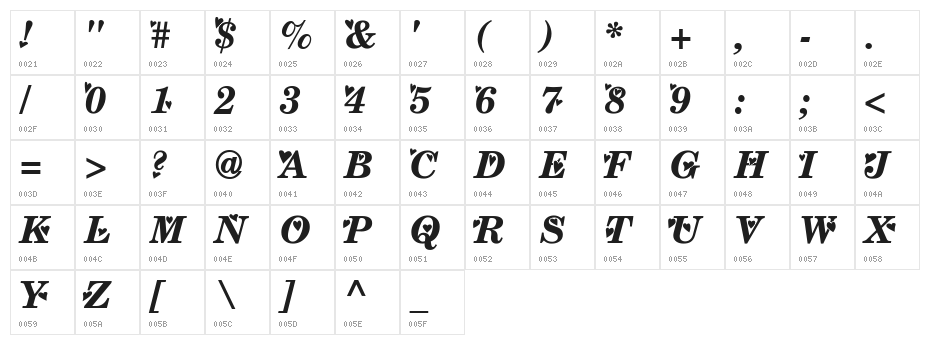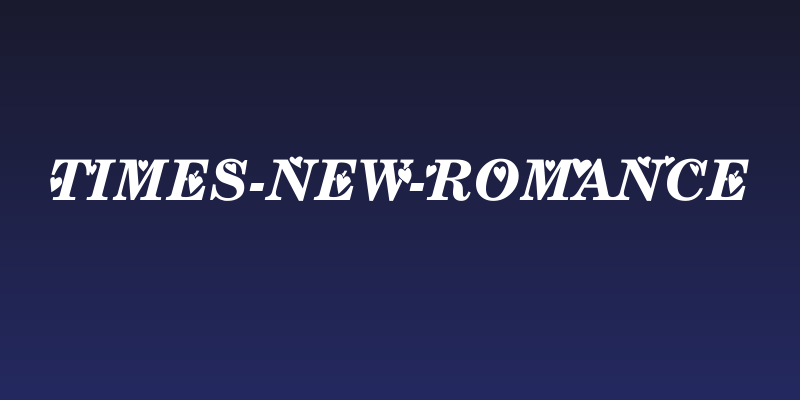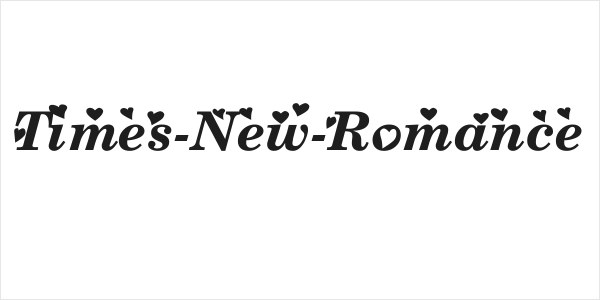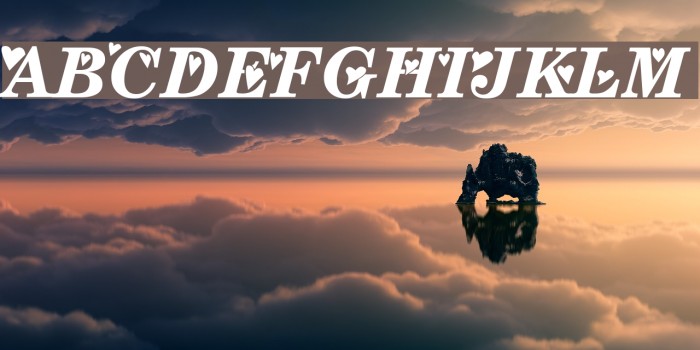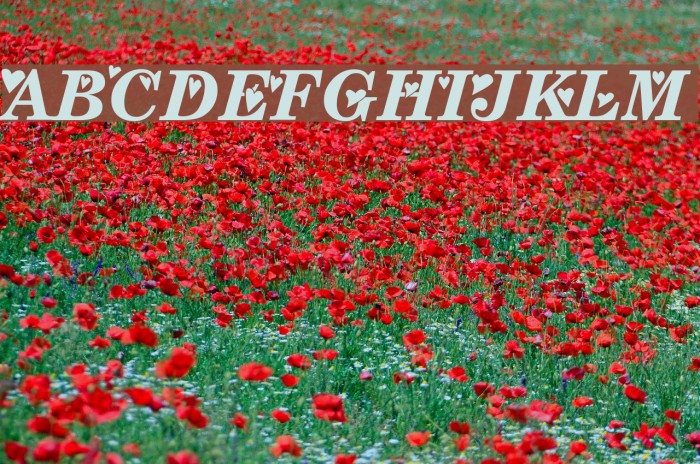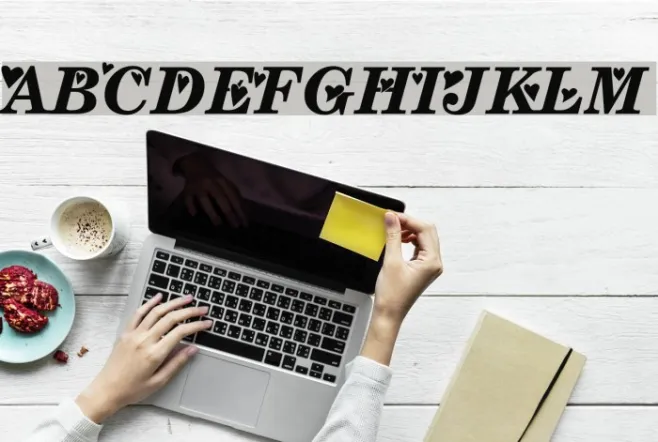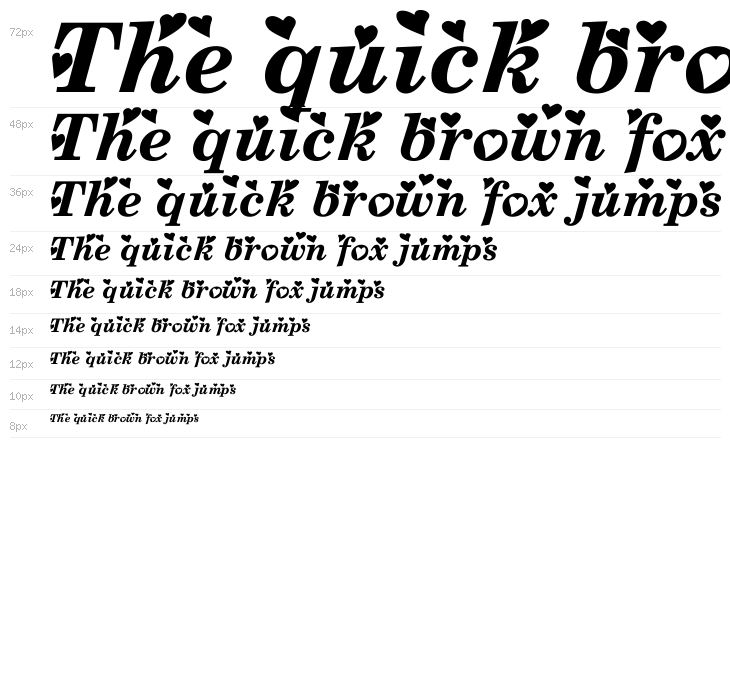
Times-New-Romance Font
Times-New-Romance Description
This playful and romantic font features heart-shaped embellishments on each character, adding a whimsical touch to the classic serif style. The letters are bold and slightly italicized, giving them a dynamic and lively appearance. The uppercase and lowercase letters maintain a consistent design, with the heart motifs prominently displayed. Numbers and special characters also follow this theme, ensuring a cohesive look across all text elements. The font's unique style makes it ideal for projects that require a touch of romance or fun.
| Overall Style | Romantic, Playful, Decorative |
| Use Case | Headlines, Logos, Invitations |
| Proposed Projects | Ideal for wedding invitations, Valentine's Day promotions, romantic greeting cards, and playful branding projects. |